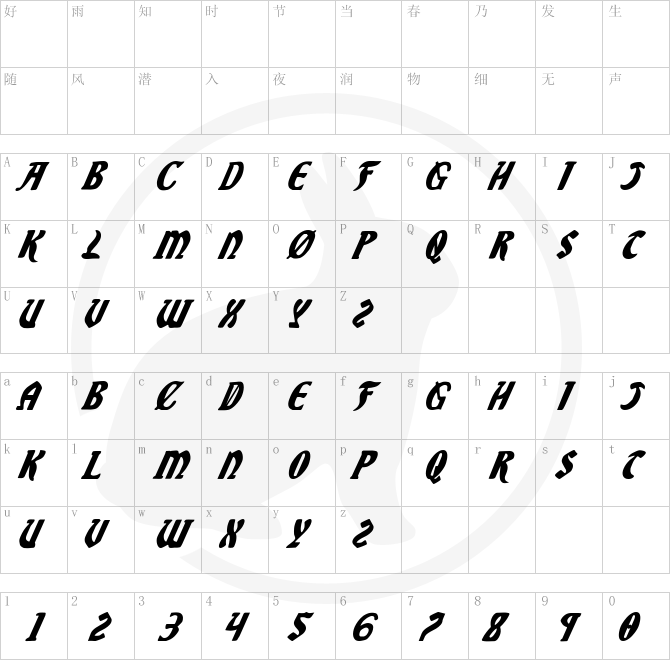
- Font Name:Sable Lion Italic
Sable-Lion-Italic.ttf is a very beautiful artistic font, Sable-Lion-Italic.ttf is widely used in the design and printing of various books and pictures,Sable-Lion-Italic.ttf has a strong visual impact,Sable-Lion-Italic.ttf is a commonly used font in newspapers, magazines and books, and is used in posters, e-commerce Poster design, store design, logo design, font design and other fields.Sable-Lion-Italic.